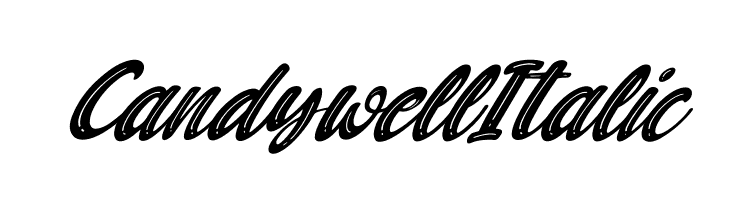
A playful and bold decorative font with quirky letterforms.
A playful, whimsical handwritten font with flowing strokes and a casual vibe.
A bold, playful font with a unique striped pattern and rounded characters.
A playful, bubble-like font with bold, rounded characters.
A bold, playful cursive font with rounded strokes and a lively, dynamic style.
A bold, italicized cursive font with thick, flowing strokes.
A bold, playful script font with a handwritten style.
A bold, italicized cursive font with fluid, connected characters.
A playful, hand-drawn font with rounded, bold characters.